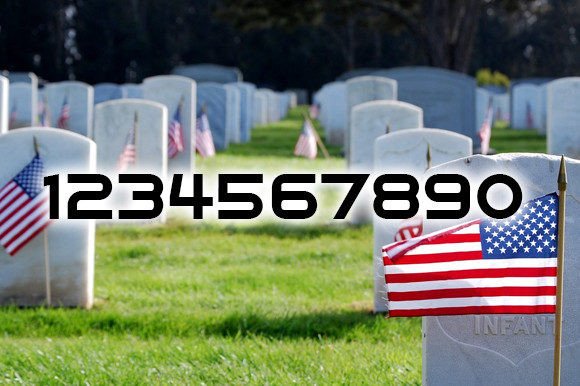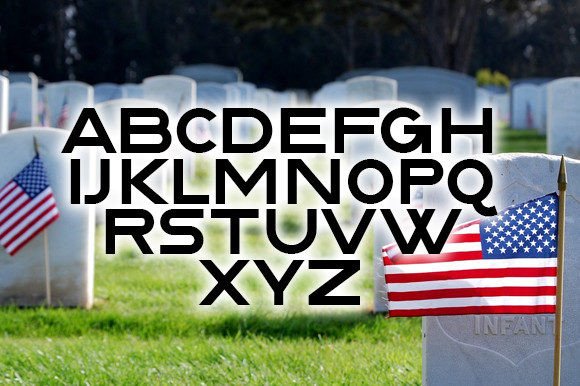
Elevate Your Designs with Burial Font: A Superb Looking Typeface
Are you tired of using the same old fonts in your designs? Look no further than Burial Font, a game-changing typeface that will take your creations to the next level. With its unique and stylish aesthetic, Burial Font is perfect for designers and crafters looking to add a touch of sophistication to their work.
What is Burial Font?
Burial Font is a modern, sans-serif typeface that boasts a distinctive look and feel. Its clean lines, elegant curves, and precise craftsmanship make it an excellent choice for a wide range of design applications. Whether you’re working on posters, flyers, banners, social media graphics, or any other project, Burial Font is sure to make a lasting impression.
Key Features of Burial Font
- Unique and Stylish Aesthetic: Burial Font’s design is both modern and timeless, making it perfect for designers who want to create visually striking work.
- Highly Versatile: This font is suitable for a wide range of design applications, from print materials to digital graphics.
- Easily Readable: Despite its stylish appearance, Burial Font remains highly legible, even at smaller font sizes.
- Customizable: Burial Font can be easily customized to fit your design needs, allowing you to experiment with different colors, sizes, and styles.
Uses of Burial Font
Burial Font’s versatility makes it an excellent choice for a variety of design projects, including:
- Posters: Create eye-catching posters for events, promotions, or advertisements with Burial Font.
- Flyers: Use Burial Font to design informative and engaging flyers for businesses, organizations, or events.
- Banners: Add a touch of elegance to your banners with Burial Font, perfect for trade shows, exhibitions, or website headers.
- Social Media Graphics: Elevate your social media presence with Burial Font, ideal for creating engaging graphics, posts, and stories.
- Branding and Packaging: Use Burial Font to create a cohesive brand identity, including logos, labels, and packaging materials.
Tips for Using Burial Font Effectively
To get the most out of Burial Font, follow these expert tips:
- Pair with Complementary Fonts: Combine Burial Font with other fonts to create visual interest and hierarchy in your designs.
- Experiment with Colors: Try out different color schemes to find the perfect match for your design and brand.
- Pay Attention to Font Size: Ensure that your text is easily readable by adjusting the font size according to the design and medium.
- Use White Space Effectively: Balance your design with white space to create a clean and visually appealing layout.
Burial Font is a superb looking typeface that can elevate your designs to new heights. Its unique aesthetic, versatility, and readability make it an excellent choice for designers and crafters. With its wide range of applications and expert tips for use, Burial Font is sure to become a staple in your design toolkit. So why wait? Download Burial Font today and take your designs to the next level!